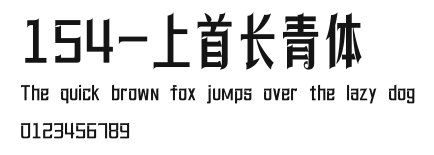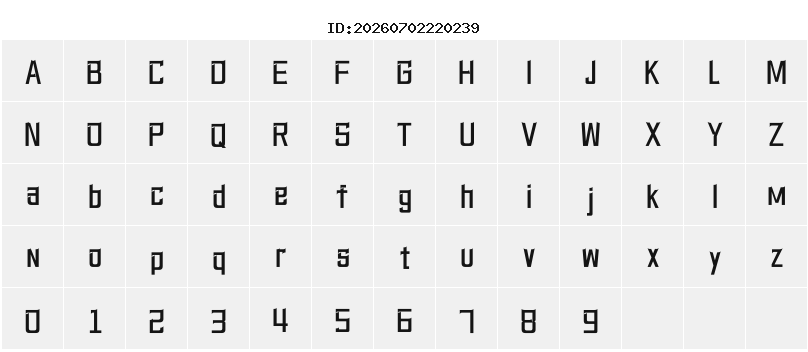
• Font Name: 154-上首长青体
• Font ID: 154-SSChangQing Ti:Version 6.00
• Full Font Name: 154-上首长青体
• Version: Version 6.00 June 15, 2022
• PostScript Name: 154-SSChangQingTi
• Character Count: 7569
• Manufacturer: 上首造字
About 154-上首长青体.ttf
154-上首长青体.ttf is a modern, elegant sans-serif font designed for ultimate readability and visual harmony. Perfect for branding, headlines, web design, and print materials.